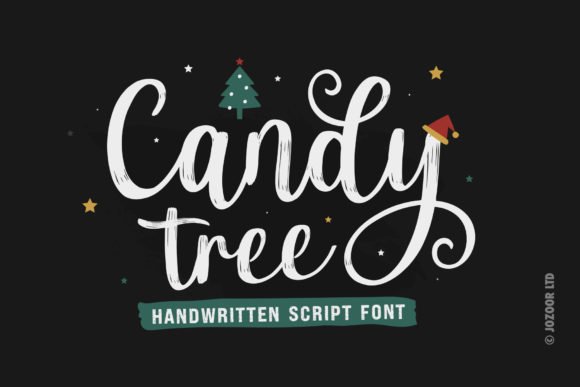
A Sweet Solution for Your Design Needs
Have you ever stared at a blank canvas, struggling to find the perfect font to match your creative vision? It’s a frustrating feeling, isn’t it? But what if I told you that there’s a font that’s as sweet as your latest craft project? Enter the Candy Tree Font, a modern script font designed to bring a touch of whimsy and elegance to your designs.
Whether you’re working on Christmas designs, holiday projects, or simply need a font that’s perfect for branding and logos, the Candy Tree Font is an invaluable asset for designers. Its versatility and charm make it an ideal choice for a wide range of applications, from save the date cards to personal gift cards. With the Candy Tree Font, you’ll be able to add a personal touch to your projects that’s sure to delight your audience.
Candy Tree Font Key Features
- Unique Characteristics: The Candy Tree Font features a playful, whimsical design with intricate details and ornaments, making it perfect for adding a touch of magic to children’s books, greeting cards, and other creative projects.
Candy Tree Font Review
I recently had the chance to work with the Candy Tree Font, and I must say it’s a sweet treat for designers. ✨ Here are some things that work well:
- Whimsical and playful feel, perfect for projects that require a touch of nostalgia.
- Highly customizable, allowing you to adjust the color, size, and style to fit your design needs.
- Works well in digital and print formats, making it a versatile choice for various projects.
However, as with any font, there are some limitations: ⚠️
- Some letters may be difficult to read at smaller sizes, which could be a concern for projects requiring fine print.
- May not be suitable for corporate or formal designs, as it’s more geared towards playful and creative projects.
Overall, I think the Candy Tree Font is a great addition to any designer’s toolkit. While it may have some limitations, its unique charm and high level of customization make it a valuable asset for projects that require a touch of personality.
For optimal results, use Candy Tree Font for designs that require a playful and whimsical touch, such as children’s party invitations, food labels, or social media graphics. To get the most out of the font, experiment with different font sizes, colors, and combinations with other fonts.
Compared to Candy Tree Font, Great Vibes has a more refined and sophisticated look, making it suitable for high-end designs. While Candy Tree Font has a playful and childlike feel, Great Vibes is more versatile and can be used in a variety of contexts.
Compared to Candy Tree Font, Cream Soda has a more rugged and textured look, making it suitable for designs that require a lot of character. While Candy Tree Font is bright and cheerful, Cream Soda has a more muted and worn look.